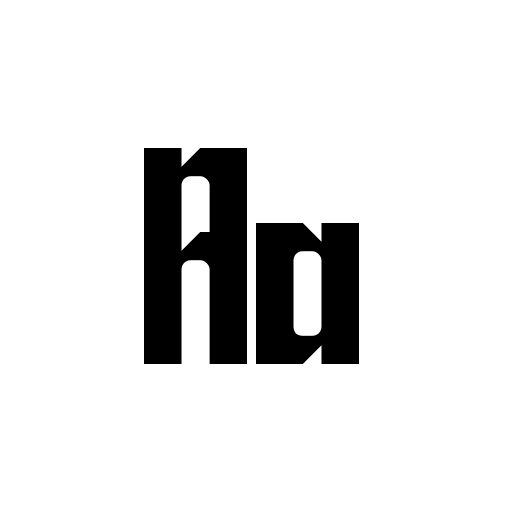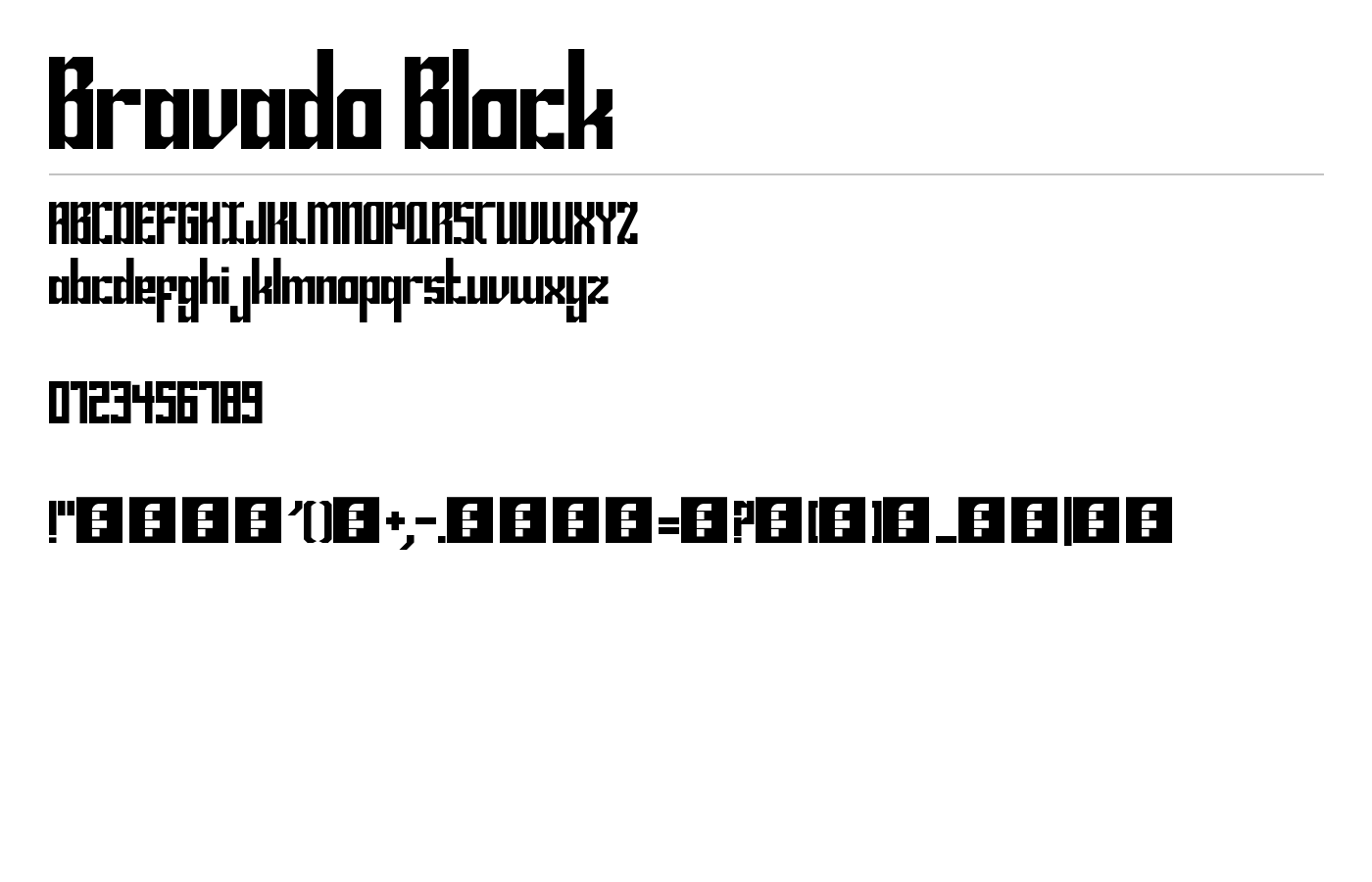
Bravado Block is a bold, condensed sans serif font with a strong geometric and industrial feel. Its tall, narrow letterforms and uniform stroke weight create a striking, modern look that commands attention, making it ideal for impactful headlines, posters, and branding that needs a confident, edgy style. This font works best where space is limited but a powerful visual statement is essential.
Bravado Block Font
About Bravado Block Font